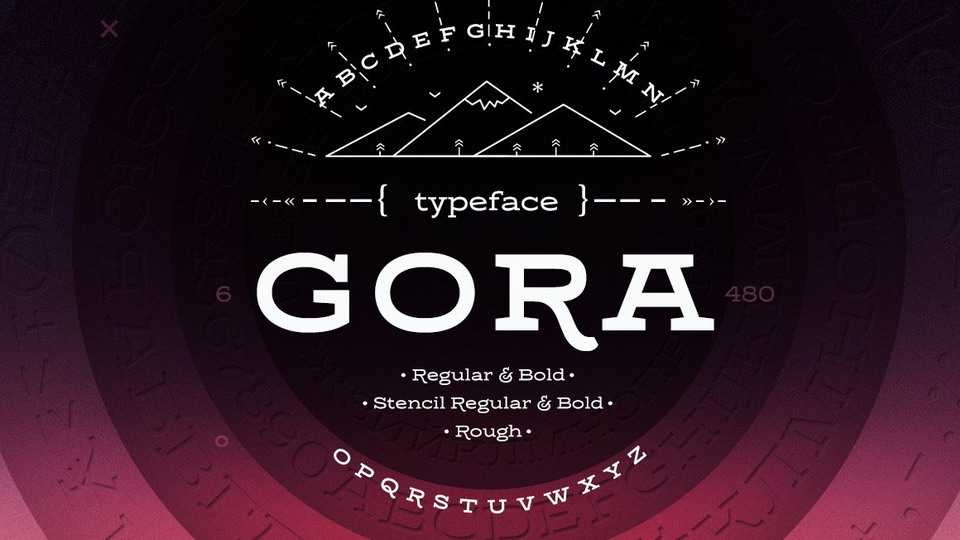
Download Gora font, a cute, original extended slab serif. Excellent choice for headlines and small amounts of text, logos and illustrations, labels and packaging.
Designer: Misha Panfilov